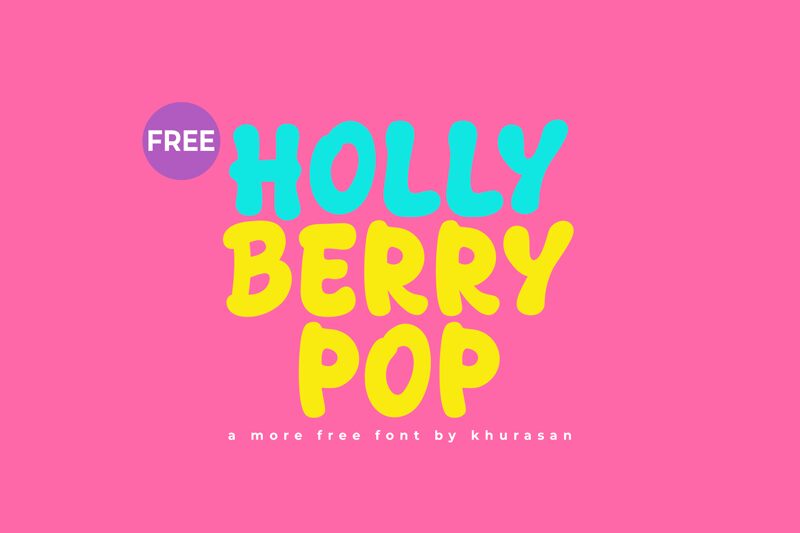
Holly Berry Pop is a free font family designed by Khurasan and shared as freeware. This is a cartoony font that contains round, bubbly characters. The font is quite cheerful and youthful, which indicates its suitability for children and teenagers.
Alongside its energetic and friendly elements are a set of modern characters that make the font appropriate for general use. The font can be used for book covers, kids’ toy products, posters, product packaging, and posters. It is also great for movie trailers, blog images and titles, social media posts, commercials, or handwritten cards.